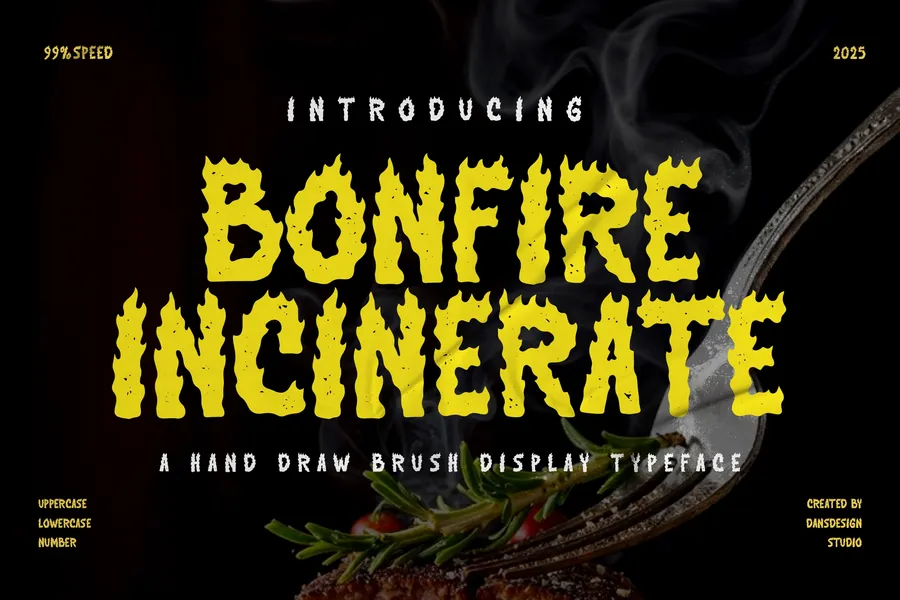
🔥 Bonfire Incinerate – Hand-Drawn Brush Font with Fire, Heat & Horror Energy
Bonfire Incinerate is a wild, flame-infused hand-drawn brush display font made for bold, burning visuals. With molten strokes and scorched textures, this typeface captures the chaotic spirit of BBQ branding, horror posters, metal album covers, and spicy food packaging. Every letter drips with energy, designed to dominate your design with heat and attitude.
Whether you’re creating a horror movie title, a flaming hot sauce label, or a BBQ festival flyer, Bonfire Incinerate delivers that raw, aggressive punch you need. 🔥 Perfect for:
BBQ posters, grill-themed flyers, and food truck menus Horror movie titles and thriller promo graphics Metal band logos, music cover art, and festival branding Spicy food labels, hot sauce branding, and culinary packaging Grunge-style digital ads, promos, and poster art Halloween flyers, haunted house visuals, and creepy event branding
⚙️ Key Features: Intense hand-drawn brush style with fire-inspired forms Grungy, scorched texture for raw visual power PUA encoded for full access to alternate glyphs Multilingual support (accents & extended Latin) Includes punctuation & numerals Available in: OTF / TTF / WOFF / WOFF2